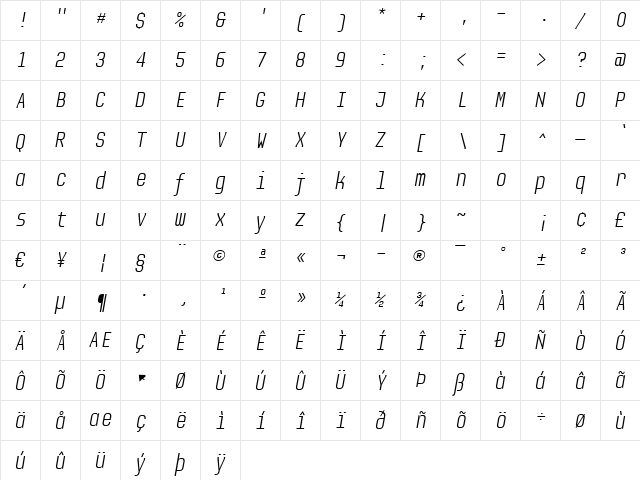
Audimat Mono LightOblique Font Preview
Design Context for Audimat Mono Typeface
Audimat Mono uses fixed-width spacing throughout, giving it the structured, systematic character associated with coding environments and technical documentation. The dynamic lean of this cut emphasises speed and emphasis in any layout. Its slender proportions lend an understated elegance to any composition.